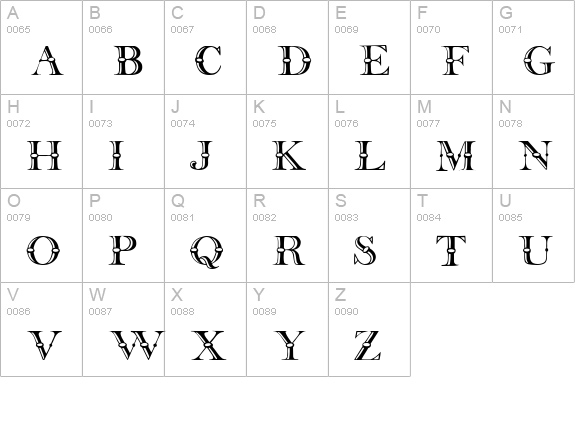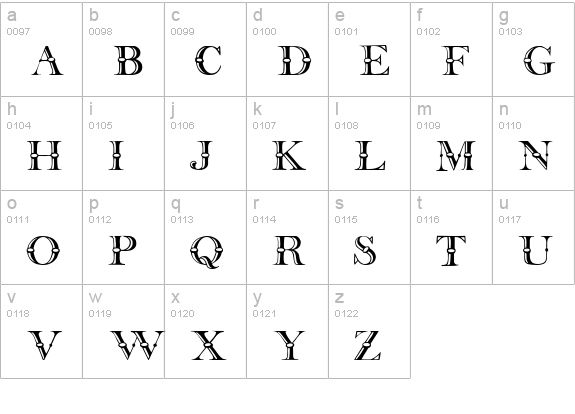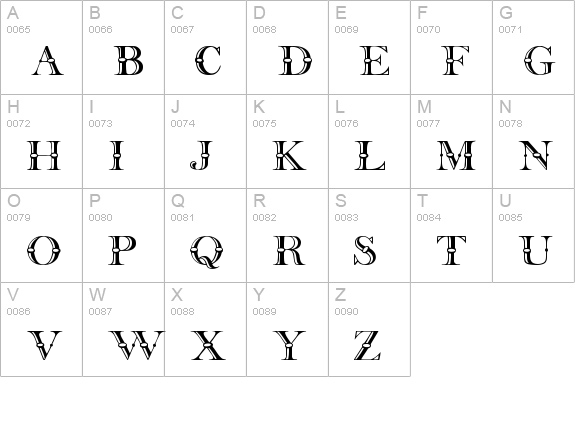
Carnivale Display Caps SSi Font Details
Carnivale Display Caps SSi font is a whimsical and playful typeface that captures the festive spirit of a carnival. Its bold and ornate letterforms are perfect for creating eye-catching headlines and designs that demand attention. The intricate details and intricate flourishes add a touch of elegance and charm to any project. What sets Carnivale Display Caps SSi font apart is that it is available for free download at FontsMarket.com. This means you can easily access this unique and captivating font to enhance your creative projects without any cost. Whether you're working on invitations, posters, or branding materials, Carnivale Display Caps SSi font is sure to make a lasting impression. Download it now and let your imagination run wild with this delightful and festive typeface.